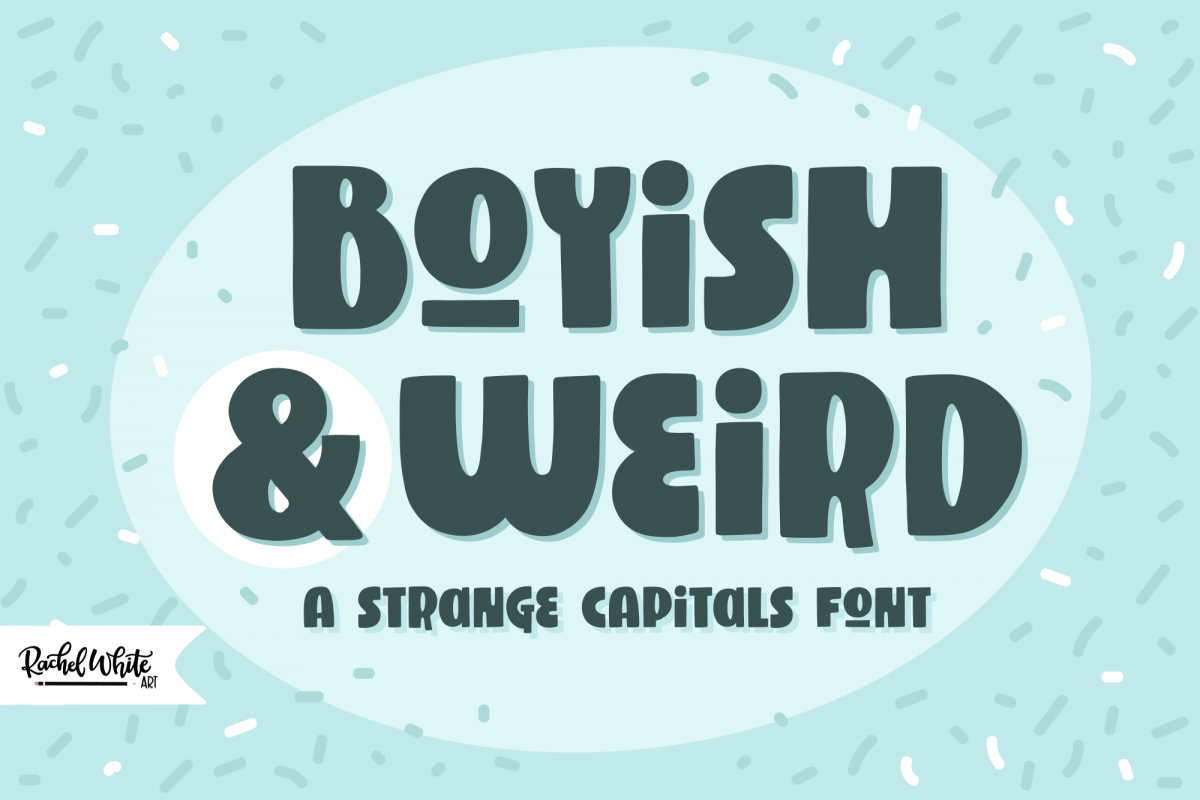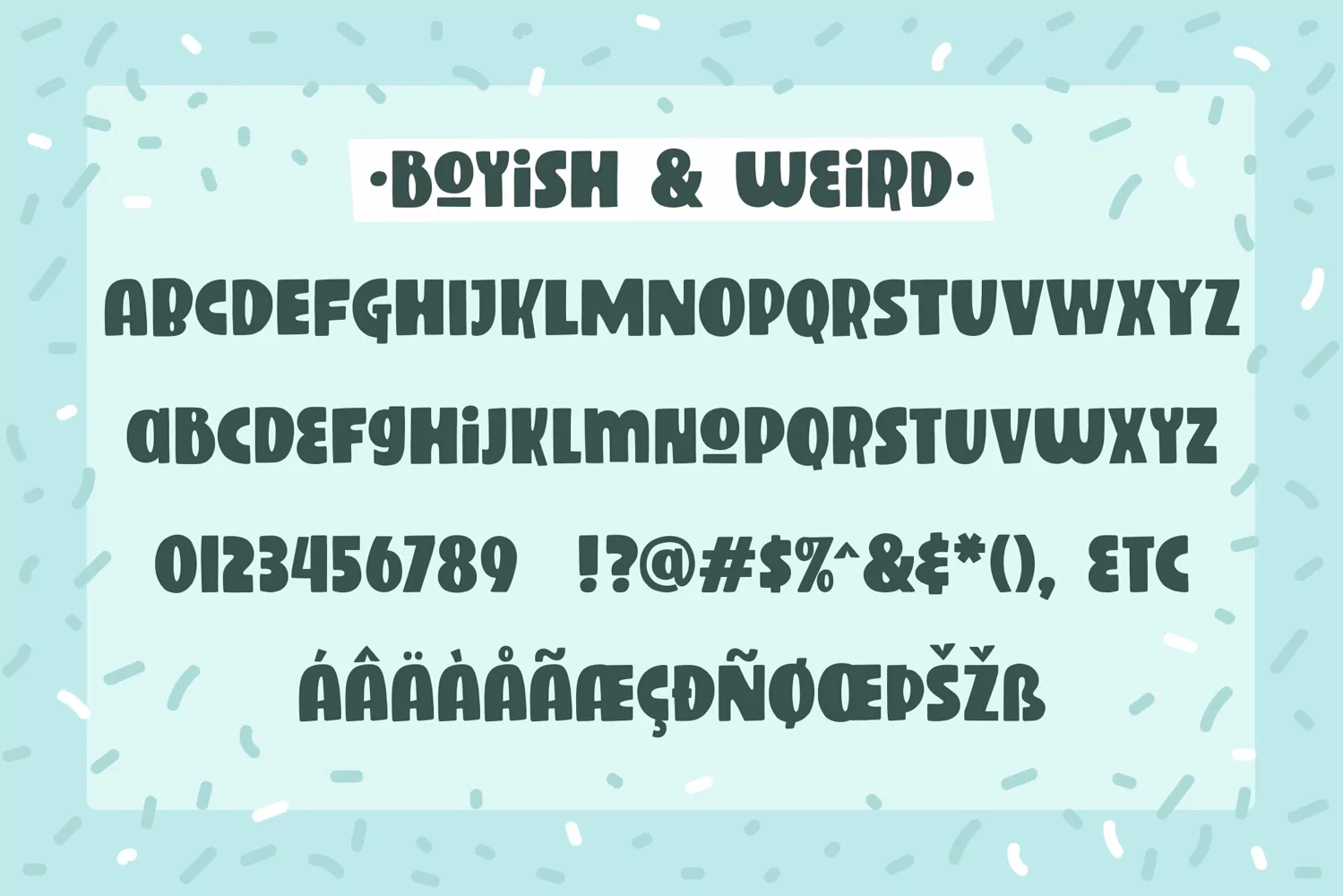
Say hello to Boyish & Weird! (I don't know what about this is actually boyish, but I do like how that word looks with these letters.) I had a lot of fun making this weird little font. It has oval cutouts, heavy lines, and plenty of whimsical details.
It also includes language support for Western European languages. Yay!